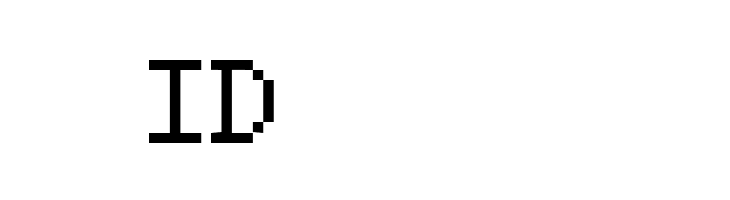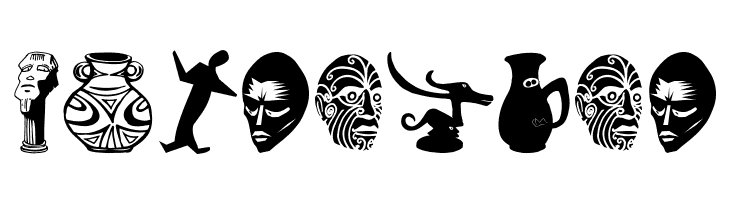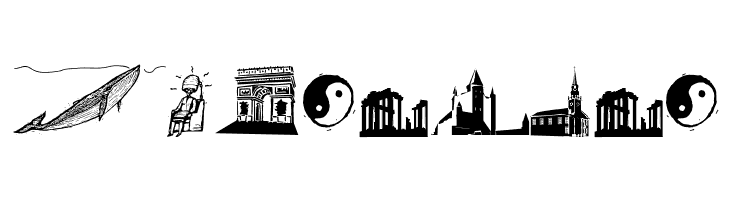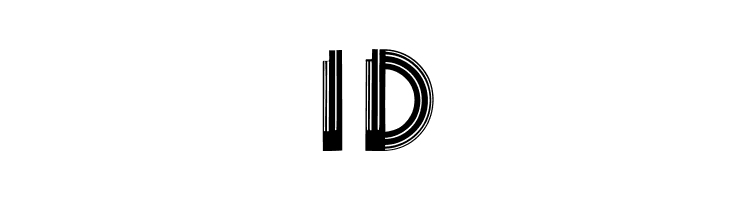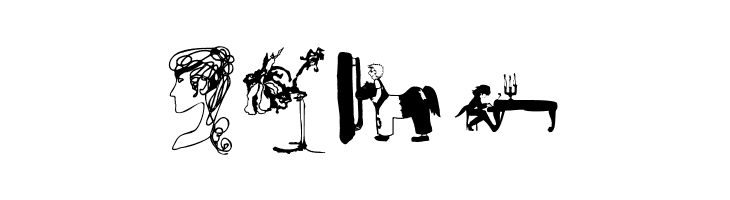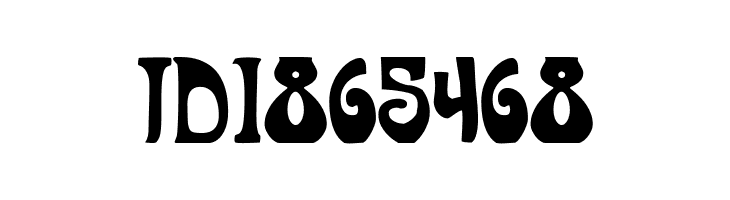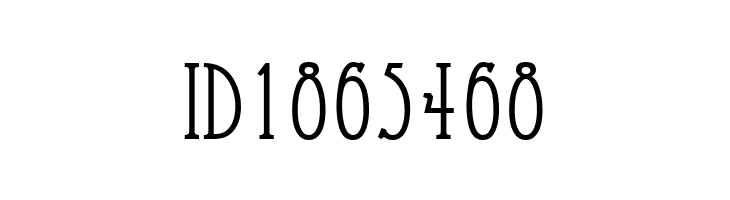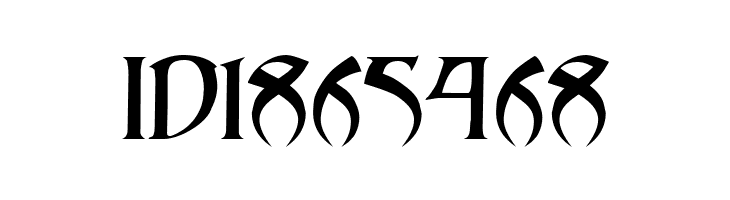
• Art-Nouveau 1910
A bold, decorative font inspired by the Art Nouveau style with flowing, organic shapes.
• ArteFactsTwo
A decorative pictogram font featuring artifact and tribal-inspired symbols.
• ArteVectoria
A collection of artistic vector illustrations, not a traditional font.
• Arthur Gothic
A bold, Gothic-inspired font with sharp, angular lines and high contrast.
• Artist-Modern
A modern, artistic font with tall, slender letterforms and subtle curves.
• ArtNouveauCaps
A bold, decorative Art Nouveau font with intricate line work and geometric patterns.
• ArtParticles
A pictogram dingbat font with hand-drawn illustrations and landmarks.
• As pedras da Belle Otero
A pixelated, retro font inspired by early digital displays.
• Asian Art
A bold, framed font inspired by traditional Asian calligraphy with a modern twist.
• Asian Art II
A bold, geometric font inspired by traditional Asian calligraphy, enclosed in rectangular frames.